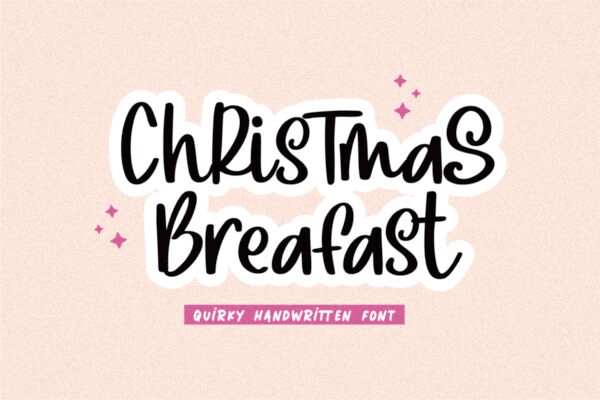
Christmas Breakfast
Christmas Breakfast is a charming handwritten font designed by Mozatype. Its playful and whimsical style captures the essence of the holiday season, making it perfect for a variety of projects. The semi-bold font exudes warmth and cheerfulness, making it an excellent choice for greeting cards, invitations, posters, and social media graphics. Whether you're designing a festive menu or creating a fun holiday-themed logo, Christmas Breakfast will add a touch of magic to your project. So go ahead and spread some holiday cheer with this delightful typeface!